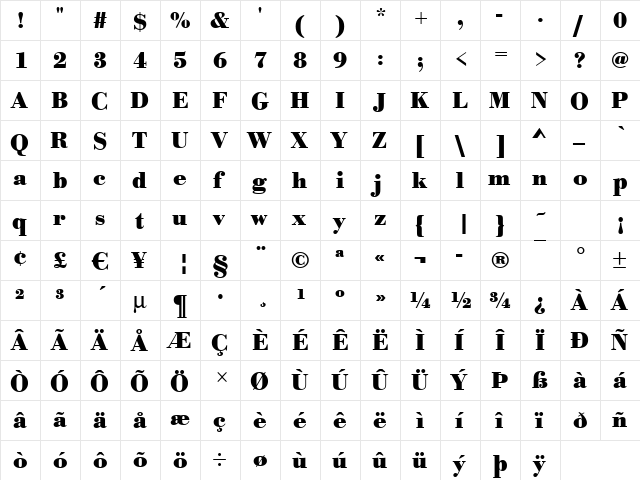
BodoniStd Bold
Design Context for BodoniStd Typeface
BodoniStd offers clean, dependable letterforms without strong stylistic allegiance, making it a practical choice for designers who need flexibility. Its bold stroke weight gives it real presence on the page.
Pro Tip: Use BodoniStd in both headline and body roles to test its range before committing to a single application.